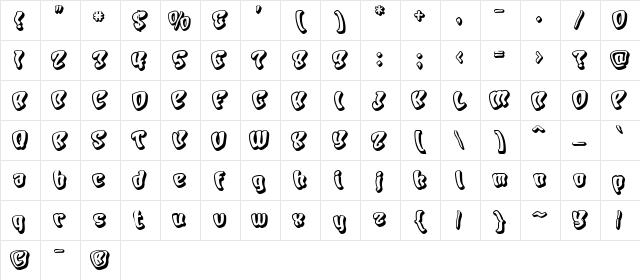
Charamel Shadow
| Style | Shadow |
Design Context for Charamel Typeface
Charamel brings ornamental detail and strong personality to headlines and identities, where visual impact matters more than quiet functionality.
Font Pairing: Pair with a clean neutral sans-serif for body copy to let Charamel's character lead without overwhelming the composition.
Pro Tip: Use Charamel exclusively at display sizes — it was designed to be seen, not read at length. Let a neutral companion handle body copy.